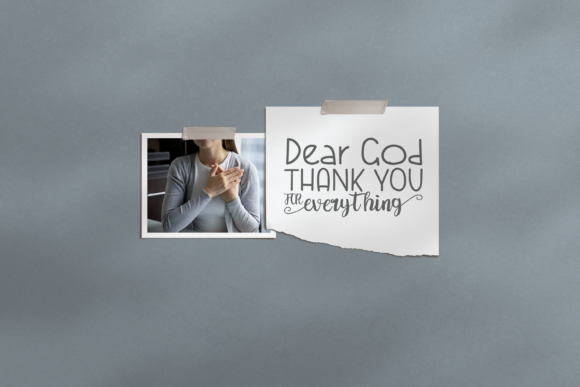
Dear God Duo Font
db-ku.com - Script & Handwritten -- Dear God Duo consists of two lovely styles of handwritten, designed to complement each other perfectly. Together or apart, the fonts are ideal for adding a chic and cheery touch to your crafts. Dear God Duo is PUA encoded which means you can access all of the glyphs and swashes with ease!